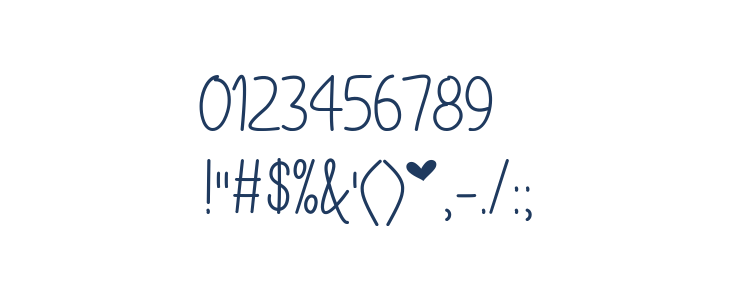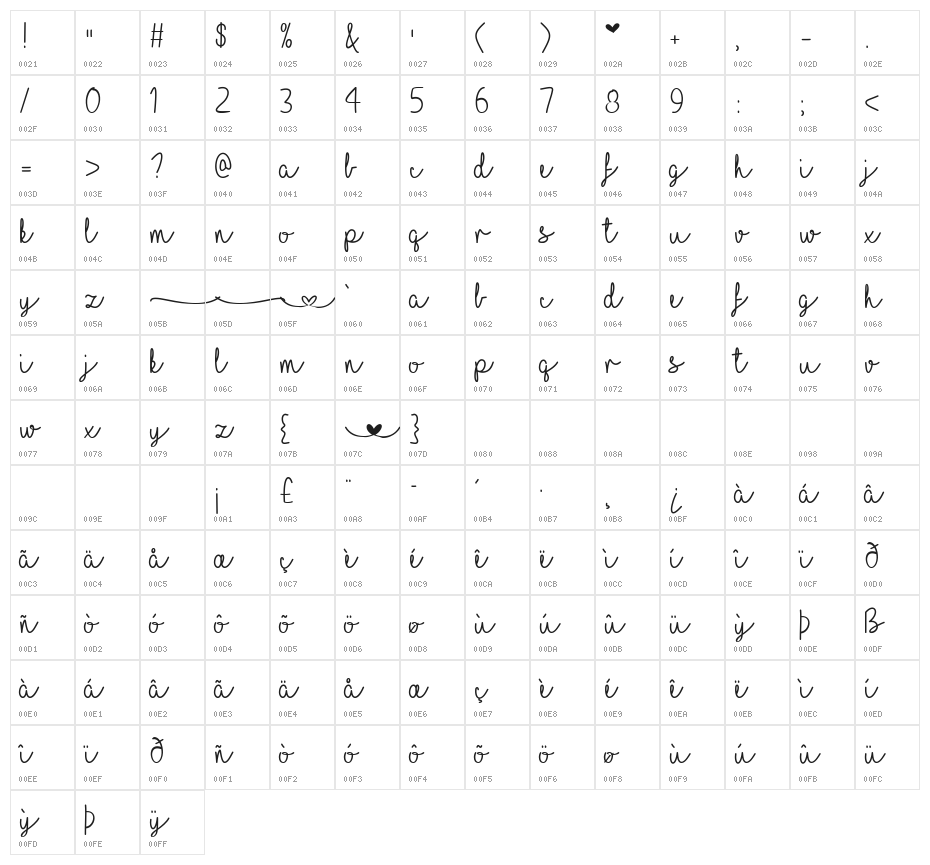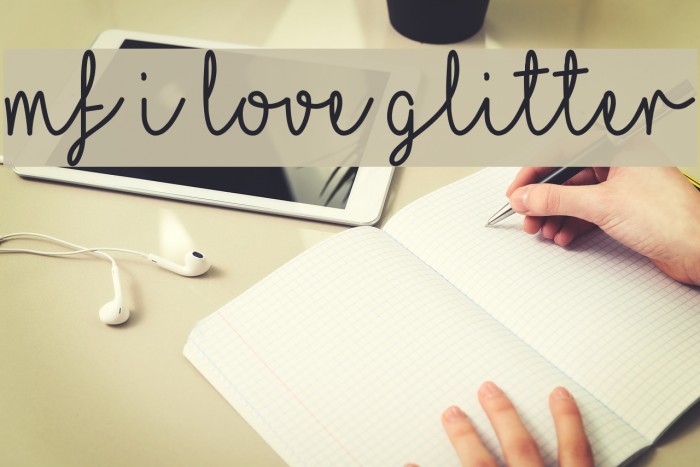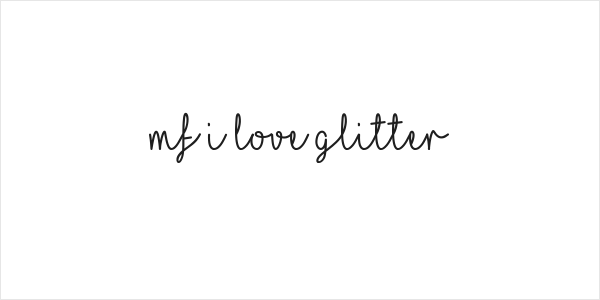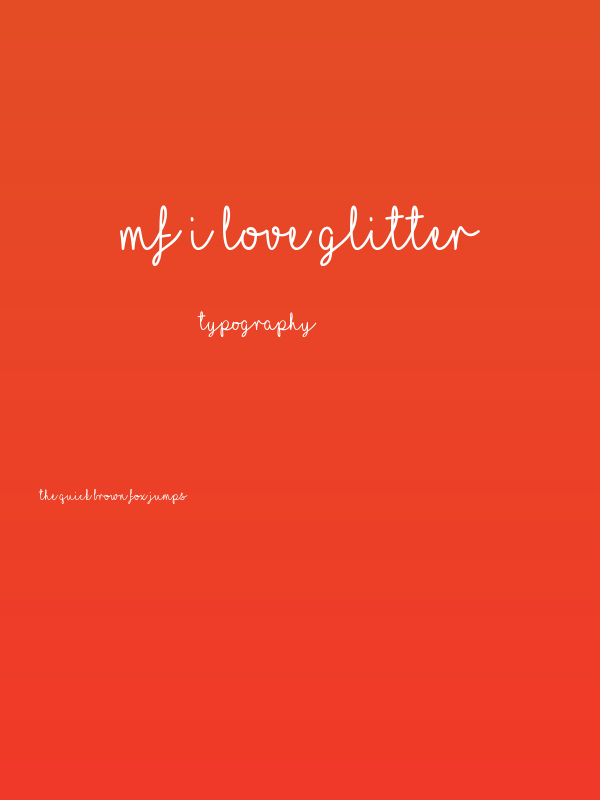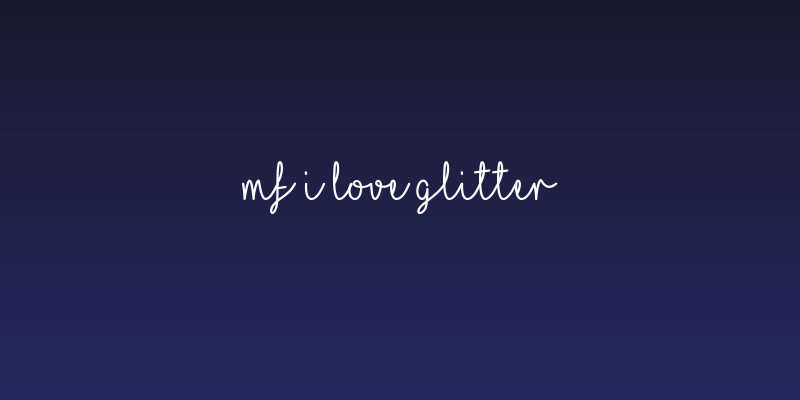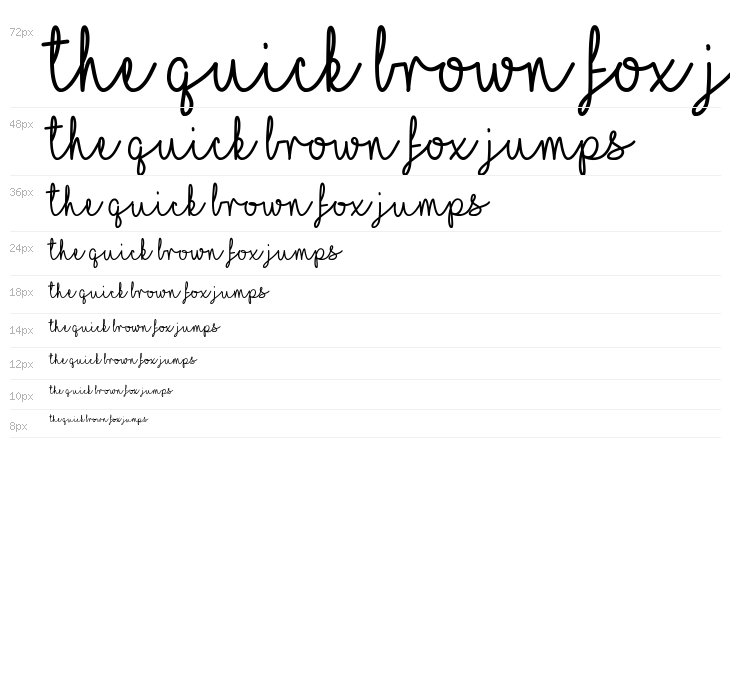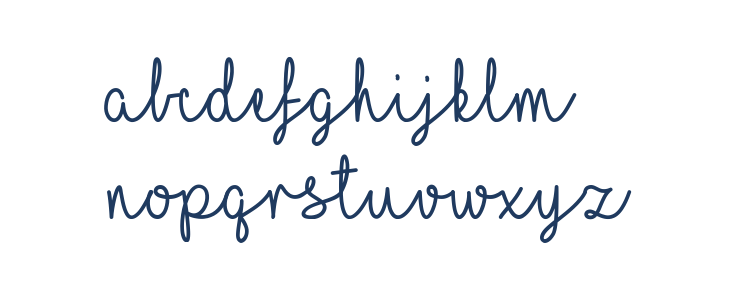
Mf I Love Glitter Font
Mf I Love Glitter Description
This font features a playful and whimsical handwritten style, characterized by its smooth, flowing cursive letters. The lowercase letters are connected, giving it a continuous and fluid appearance, reminiscent of casual handwriting. The uppercase letters maintain the same playful style, adding a touch of elegance and charm. Numbers and special characters are also included, designed with the same playful and informal aesthetic. The font's overall look is friendly and approachable, making it ideal for projects that require a personal touch. Its legibility and unique style make it suitable for a variety of creative applications.
| Proposed Projects | Ideal for greeting cards, invitations, personal branding, and creative projects that require a personal touch. |